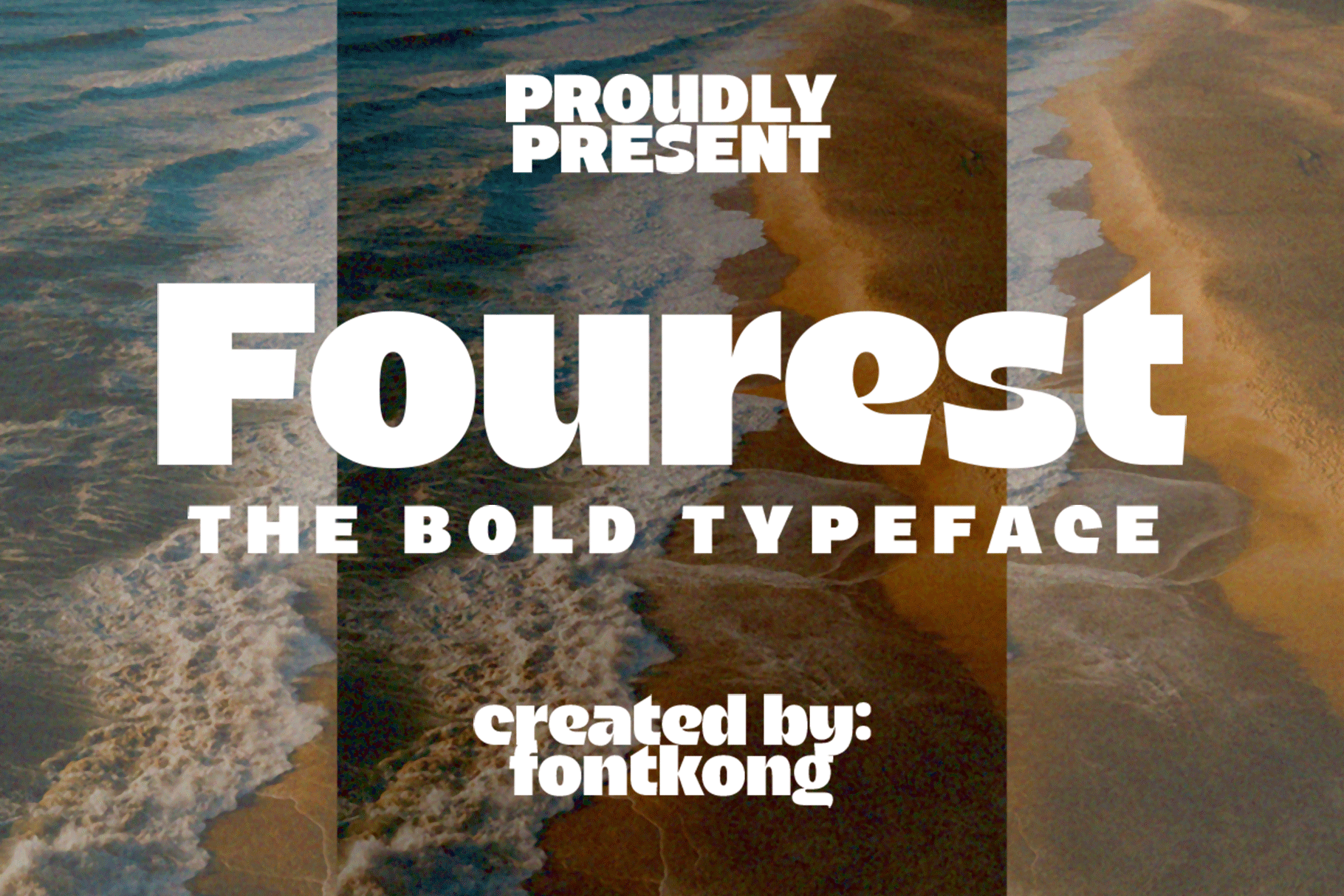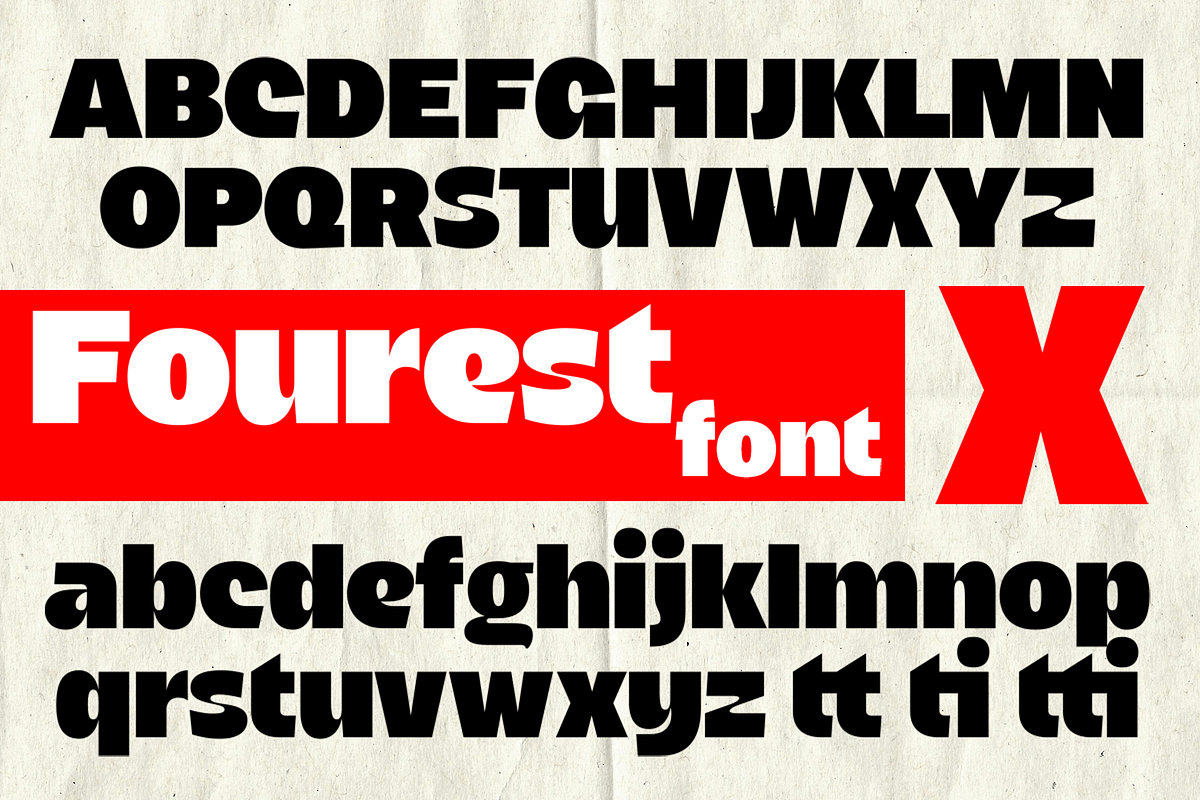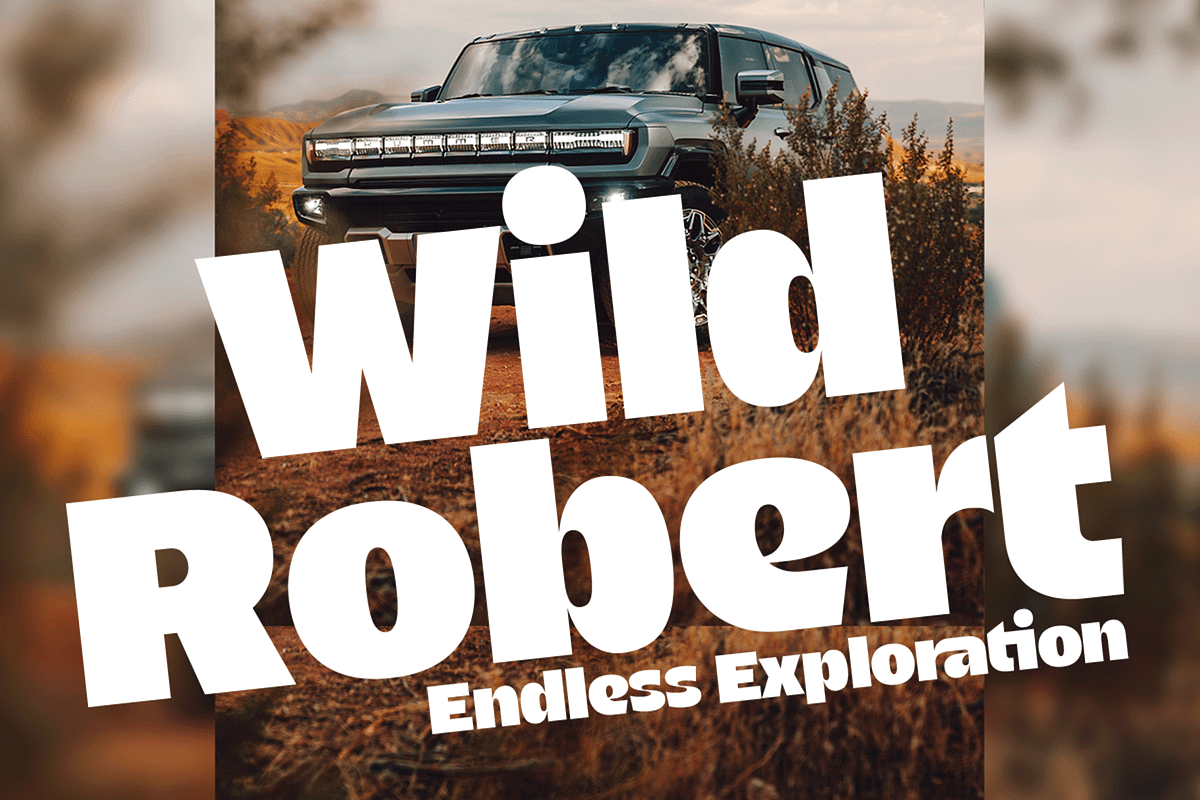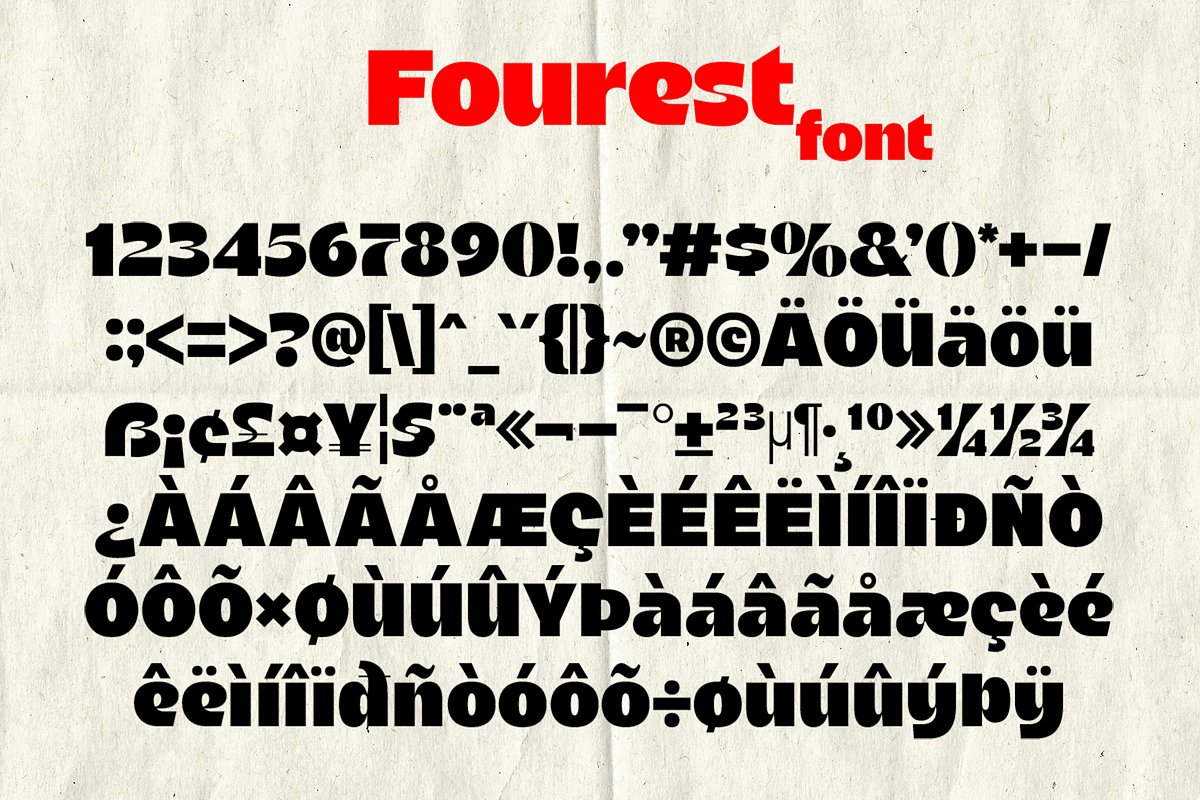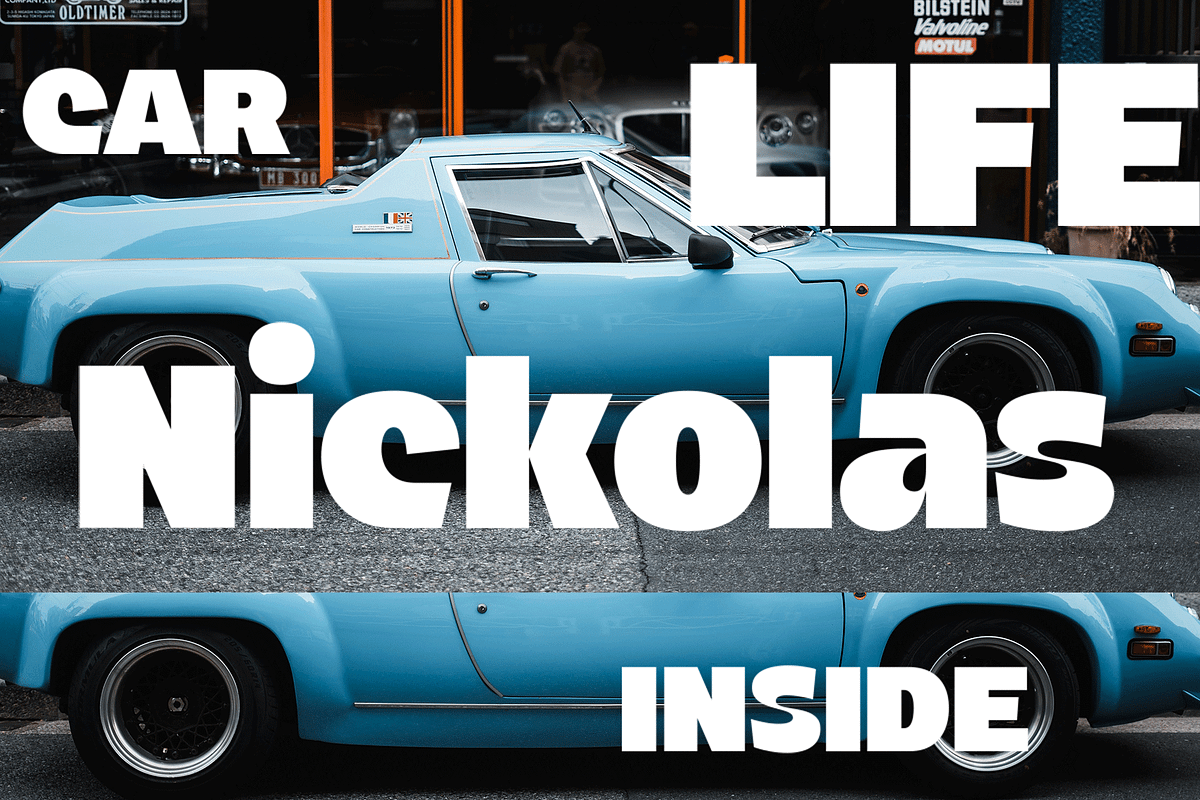
Fourest - The Bold Typeface
Introducing Fourest, a bold and striking typeface that commands attention. With its strong, geometric letterforms and clean lines, Fourest brings a sense of confidence and power to any design. Perfect for projects that need to stand out, this typeface ensures your message is impossible to ignore.
Whether you’re working on a logo, headline, poster, or brand identity, Fourest adds a touch of modern sophistication and boldness. Its sturdy construction and balanced proportions make it ideal for both digital and print designs that require high impact and readability.
With a complete character set including uppercase and lowercase letters, numerals, punctuation, and multilingual support, Fourest offers everything you need for a wide range of applications. From dynamic branding to eye-catching titles, this typeface is built to make a statement.
Fourest is your go-to bold typeface for projects that demand strength and style.